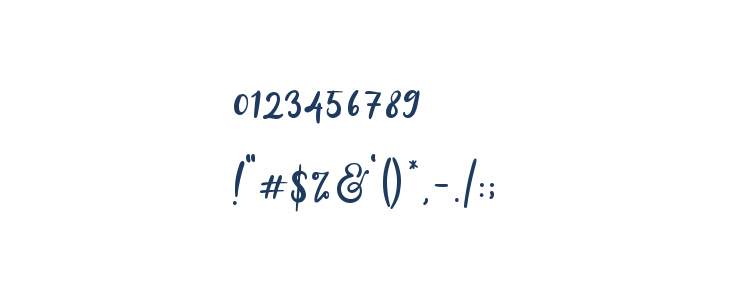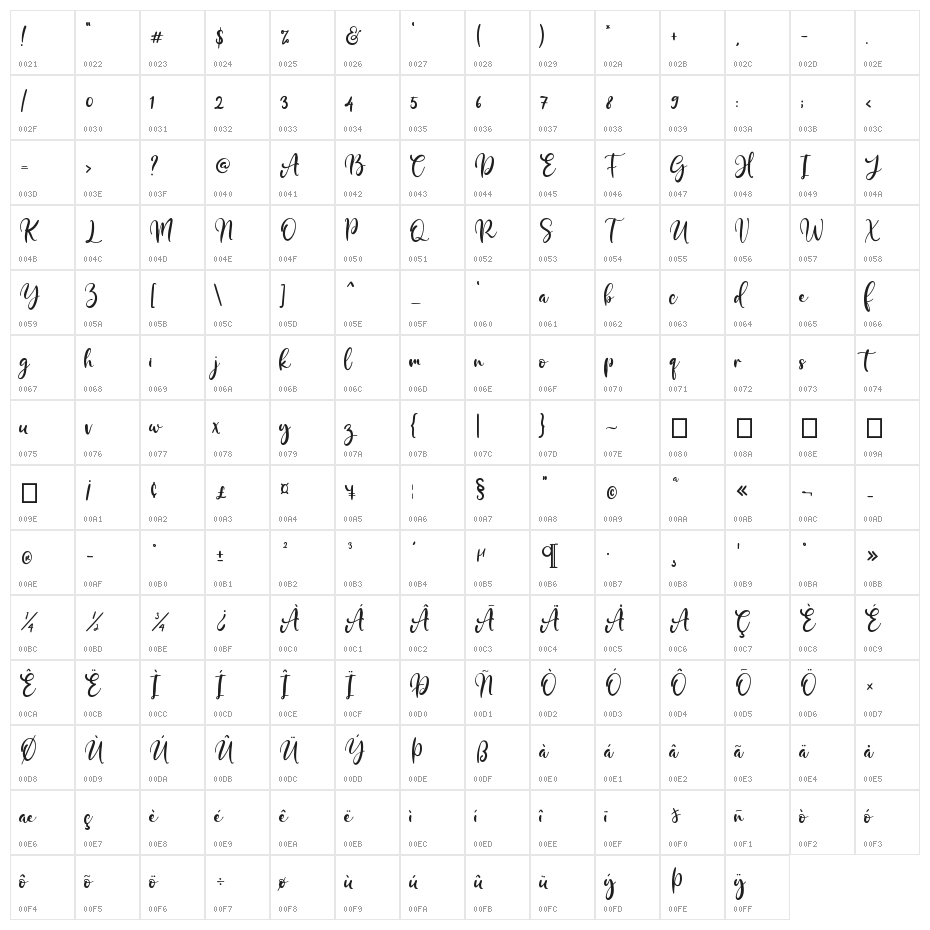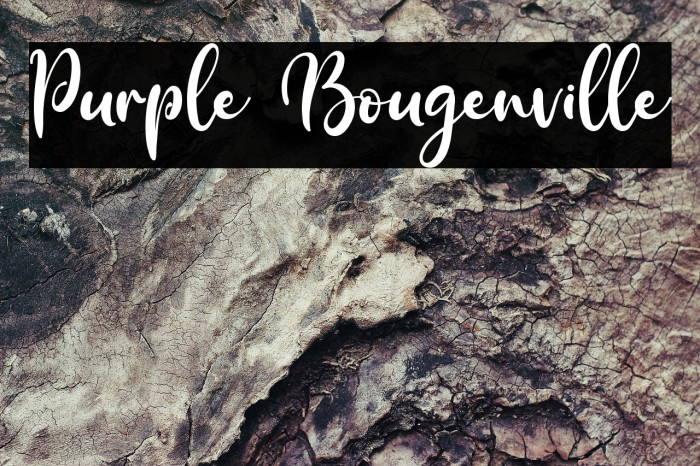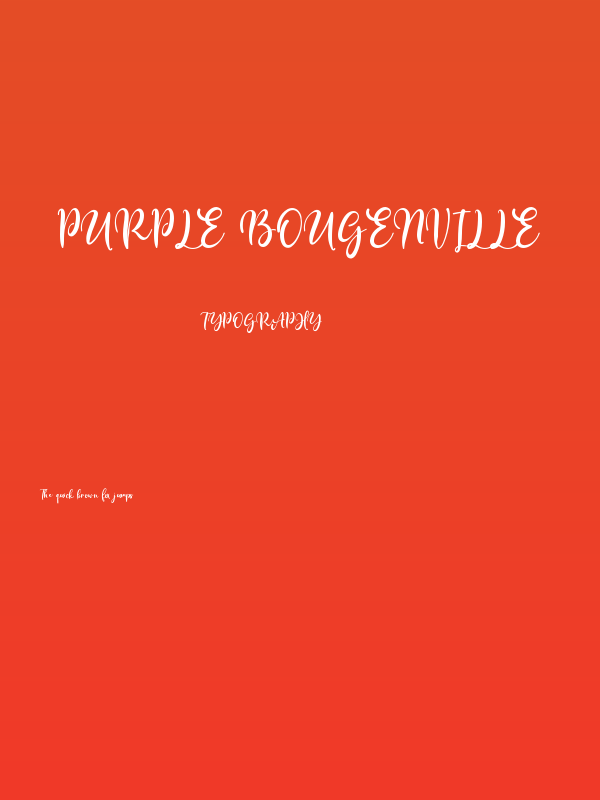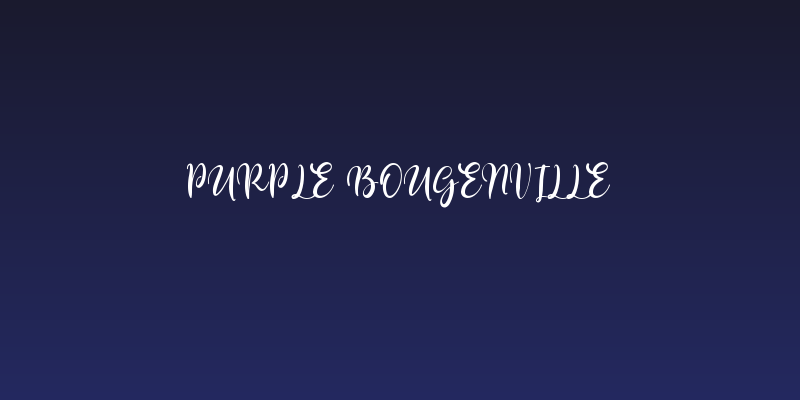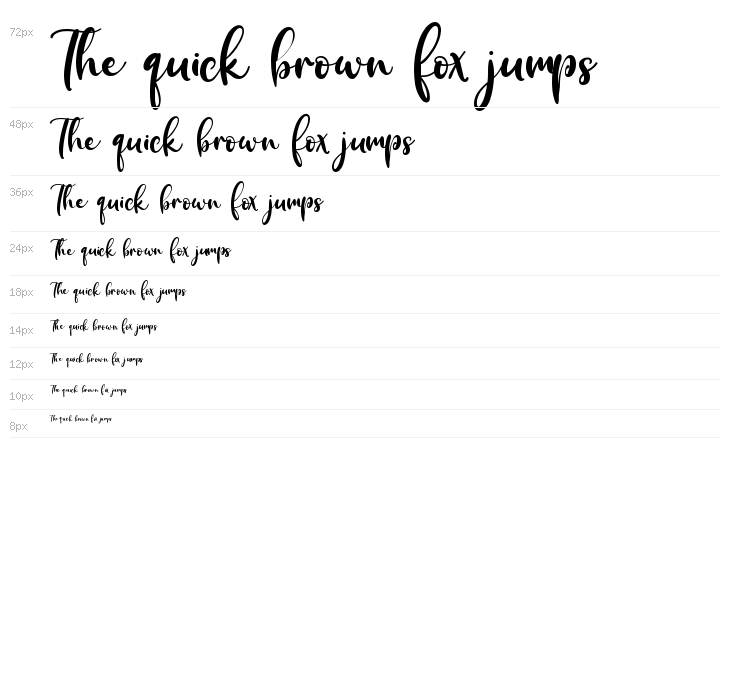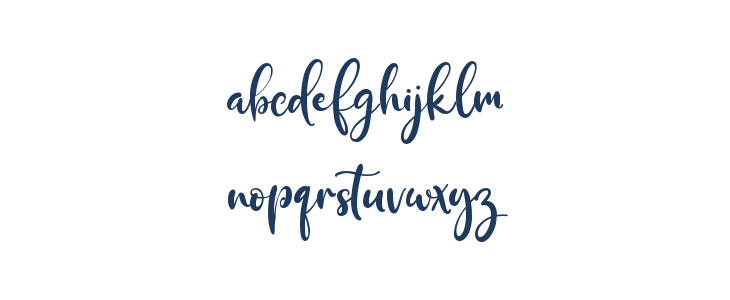
Purple Bougenville Font
Purple Bougenville Description
This font features a flowing, cursive style with elegant, sweeping strokes that give it a handwritten appearance. The uppercase letters are bold and expressive, with distinctive loops and flourishes that add a sense of movement and grace. The lowercase letters maintain a consistent style, with smooth connections between characters that enhance readability. Numbers and special characters are designed to match the overall aesthetic, providing a cohesive look. This font is perfect for projects that require a personal touch or a sense of sophistication.